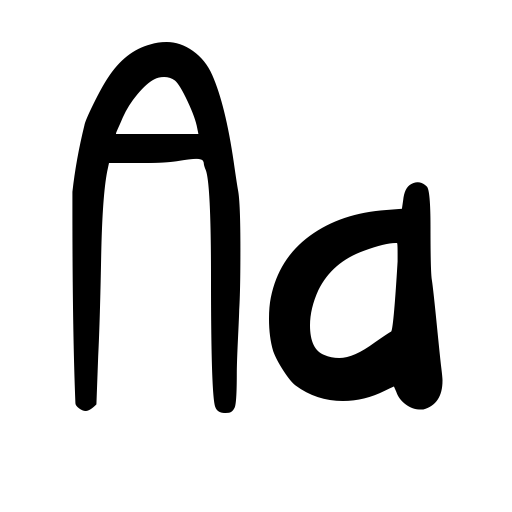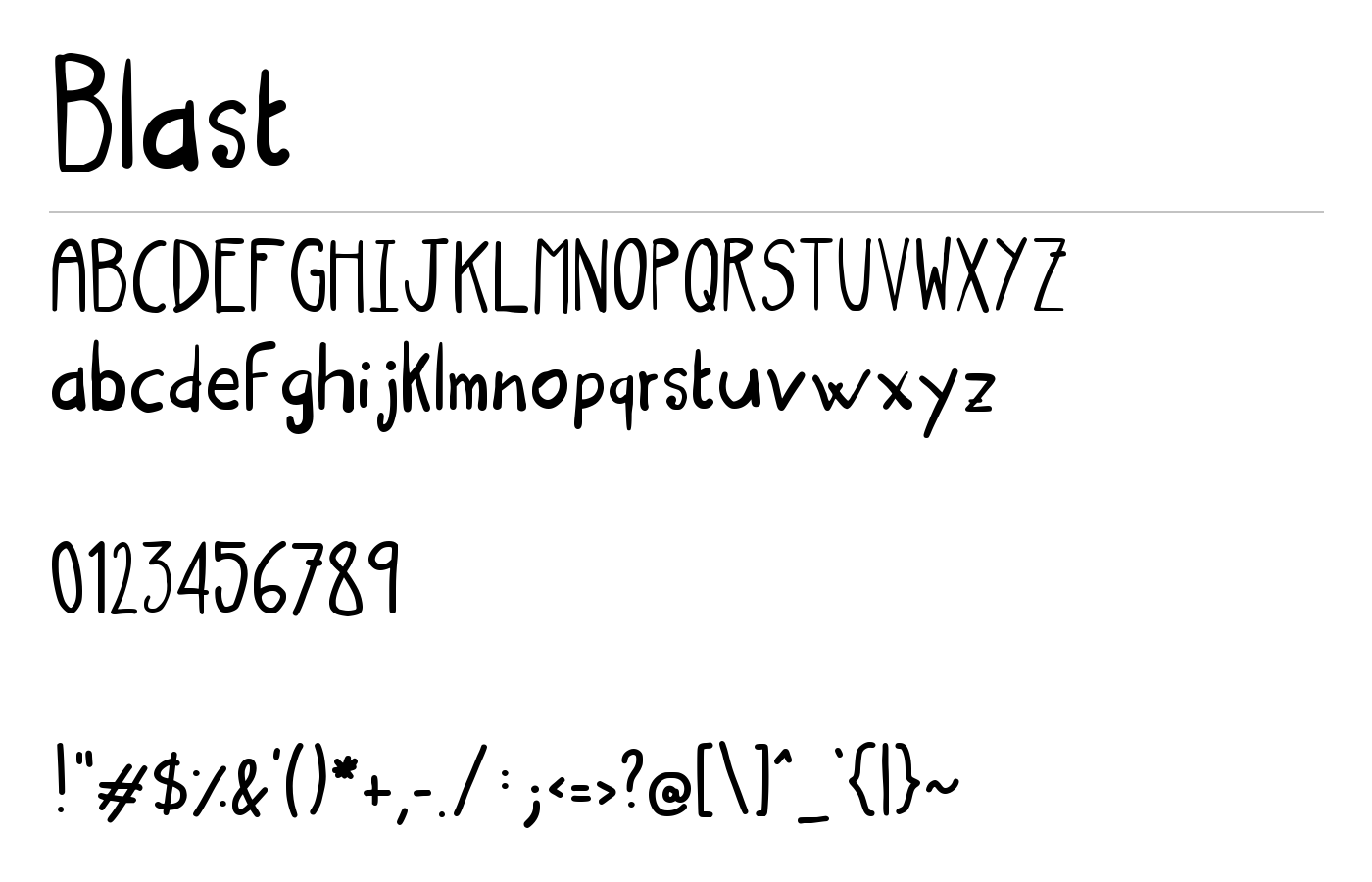
Blast Font is a playful, casual sans serif with a quirky and hand-drawn feel, featuring irregular stroke widths and uneven letterforms that give it a friendly personality. Its tall, narrow characters and informal style make it ideal for creative, fun designs such as children's books, casual branding, and lighthearted headlines.